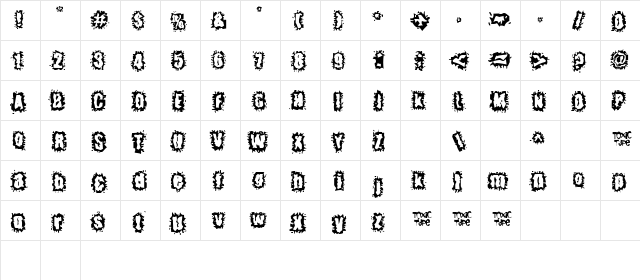
Hyper Kinetic Regular
Design Context for Hyper Kinetic Typeface
Hyper Kinetic is a composed and adaptable typeface that performs quietly and consistently across a wide range of design contexts.